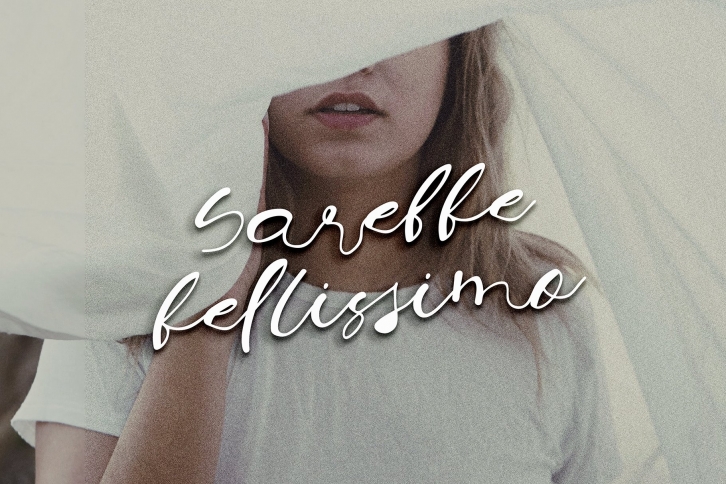
Sarebbe Bellissimo is a trendy and unique font with an authentic style. It was designed by CreativeStudioHZ and it's a great choice for creative people who need such a font. It was released on September 26, 2022 and the file size is 18.4 MB. Sarebbe Bellissimo will add an organic vibe to any design idea!